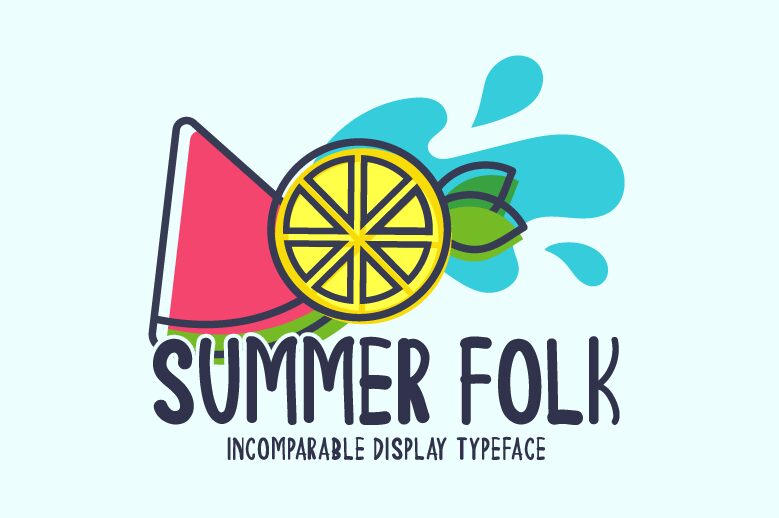
Summer Folk, designed by Md Shohail Bhuian, is a captivating display font that brings a playful touch to any project.
Its cartoon style and condensed width make it perfect for children's books, animated videos, and whimsical packaging designs. With its quirky yet legible letterforms, Summer Folk adds a delightful charm to logos, greeting cards, and social media graphics.
Let your imagination run wild and infuse your designs with the joyful spirit of Summer Folk.